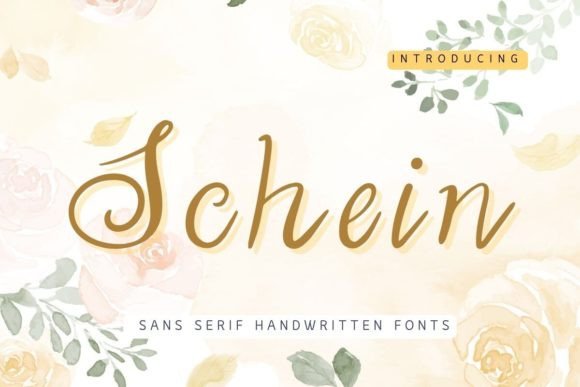
Introducing Schein Font: The Epitome of Beauty and Sophistication in Script Fonts
Journey into the world of Schein, a script font that personifies elegance and grace with its enchanting letterforms. Meticulously crafted by TONGMON DRAW, Schein is an ode to beauty, exuding a timeless charm that will transform your designs into works of art. As the perfect font for beauty clinics and branding projects, Schein's ability to capture attention ensures your messages will be received with admiration.
Adorn your designs with Schein's captivating curves, each stroke flowing effortlessly into the next, creating a visual symphony that dances before the eyes. This beauty and stylish script font is a testament to the power of aesthetics, adding a touch of sophistication to invitations, logos, and posters. Unleash your creativity and let Schein elevate your designs to new heights of elegance.
Step into a Realm of Refined Beauty with Schein
Schein's essence lies in its ability to evoke emotions, to create a sense of awe and wonder in the hearts of your audience. Its graceful strokes and elegant curves dance across the page, captivating attention and leaving a lasting impression. Whether you're crafting a breathtaking logo for your beauty clinic or designing a wedding invitation that exudes romance, Schein is your perfect companion.
Discover the Allure of Schein: A Typographic Masterpiece
Schein is a versatile font that adapts effortlessly to a multitude of projects, making it an indispensable tool in the arsenal of any designer. Its beauty and stylish script complements branding projects, adding a touch of class and distinction that sets you apart from the competition. Let Schein elevate your invitations to new levels of elegance, transforming them into cherished keepsakes. With Schein, your editorial designs will radiate an aura of sophistication, captivating readers and leaving them enthralled by your words.
Embrace Beauty, Embrace Schein: The Font of Distinction
Schein is more than just a font; it's an artistic expression that captures the essence of beauty and refinement. As a script font, it possesses an inherent charm that enchants all who behold it. Dive into the world of Schein and experience the transformative power of its flowing lines and delicate curves. Allow Schein to weave its magic into your designs, leaving a lasting impression on your audience and cementing your position as a master of aesthetics.